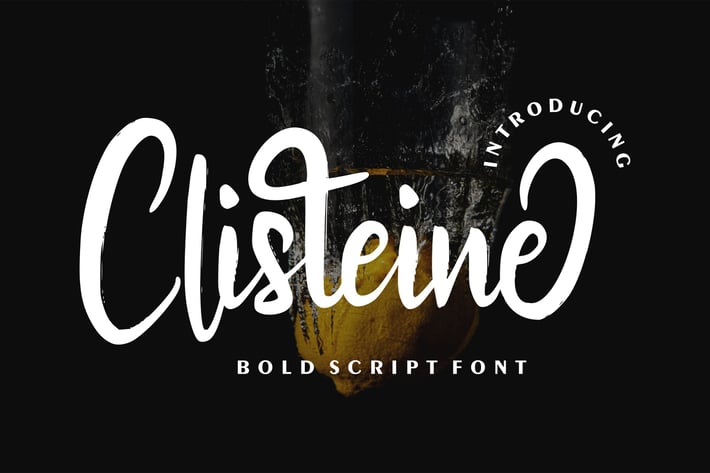
Clisteine | Bold Script Font
Clisteine | Bold Script Font with a calligraphy style, So beautiful on invitation like greeting cards, branding materials, business cards, quotes, posters, and more!